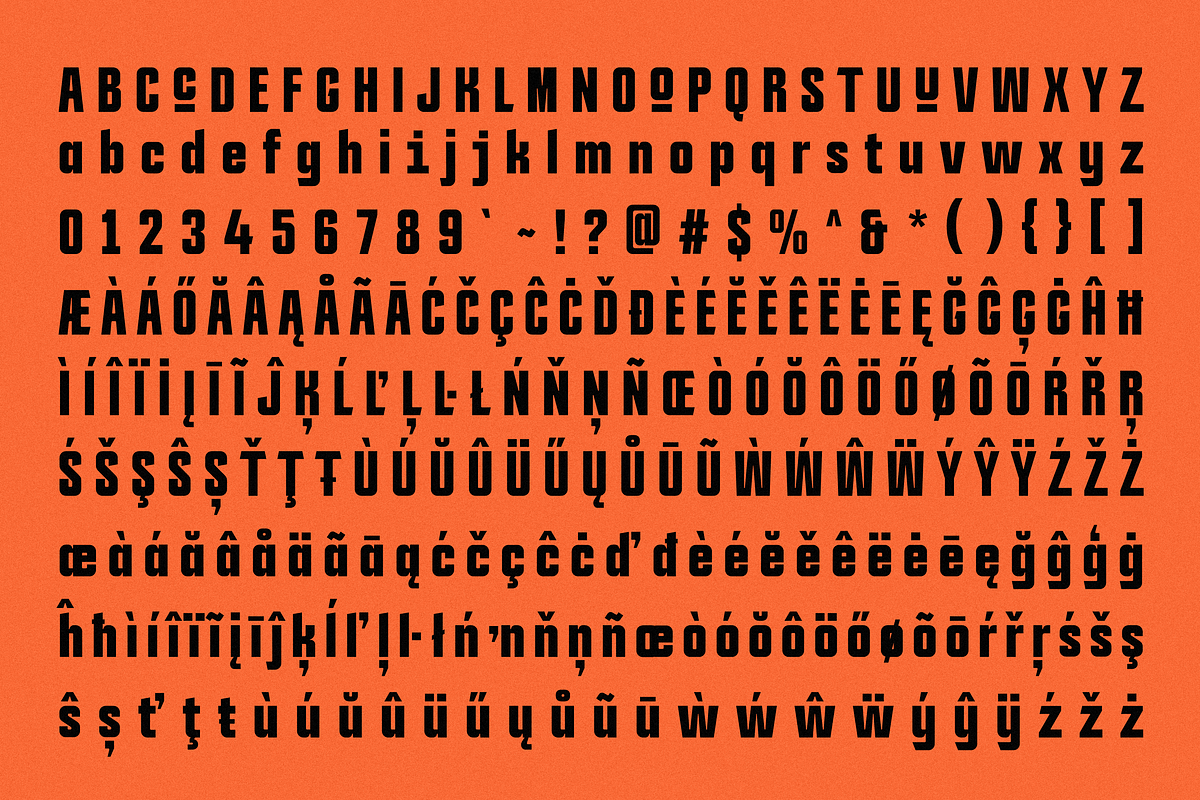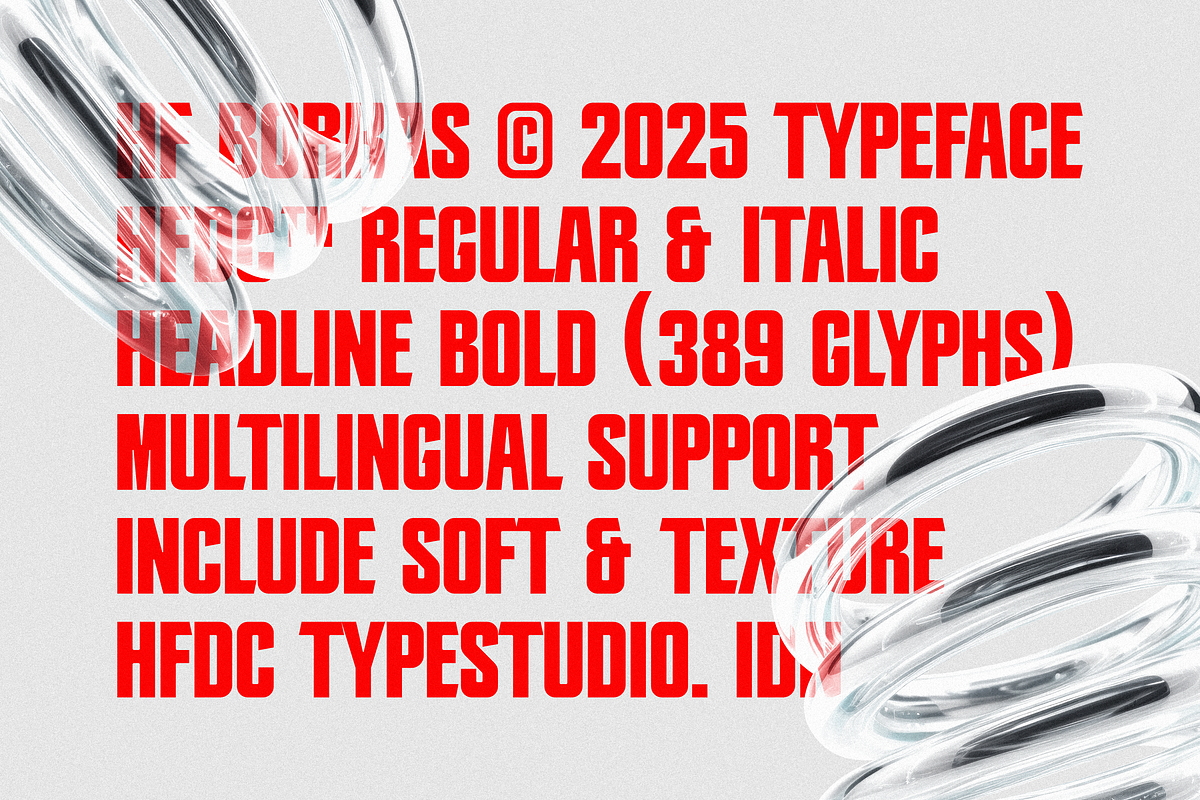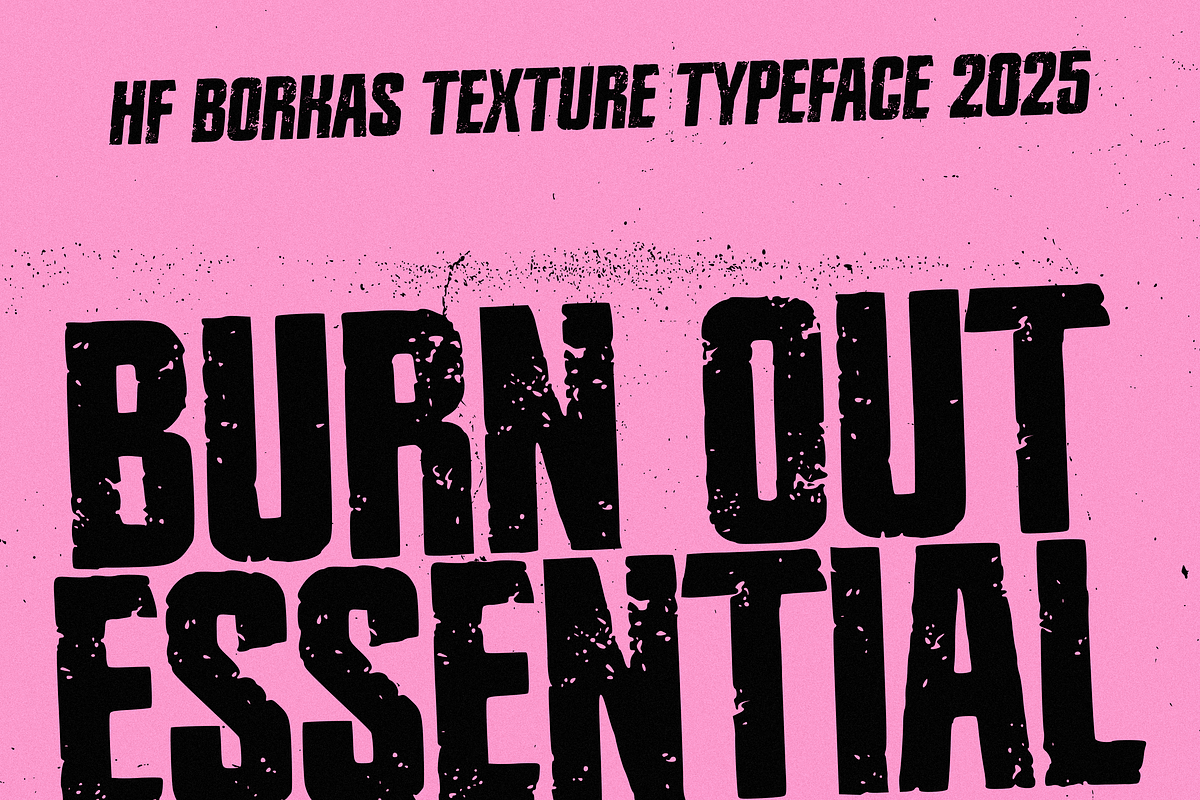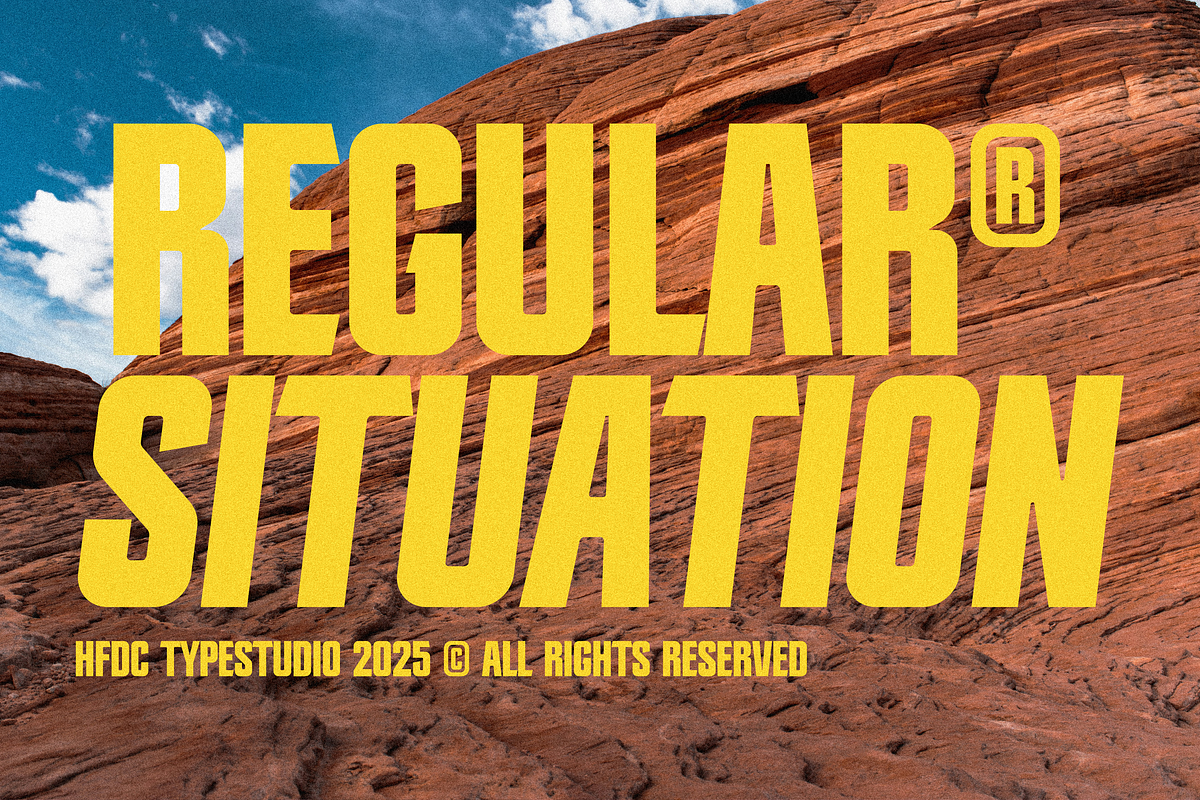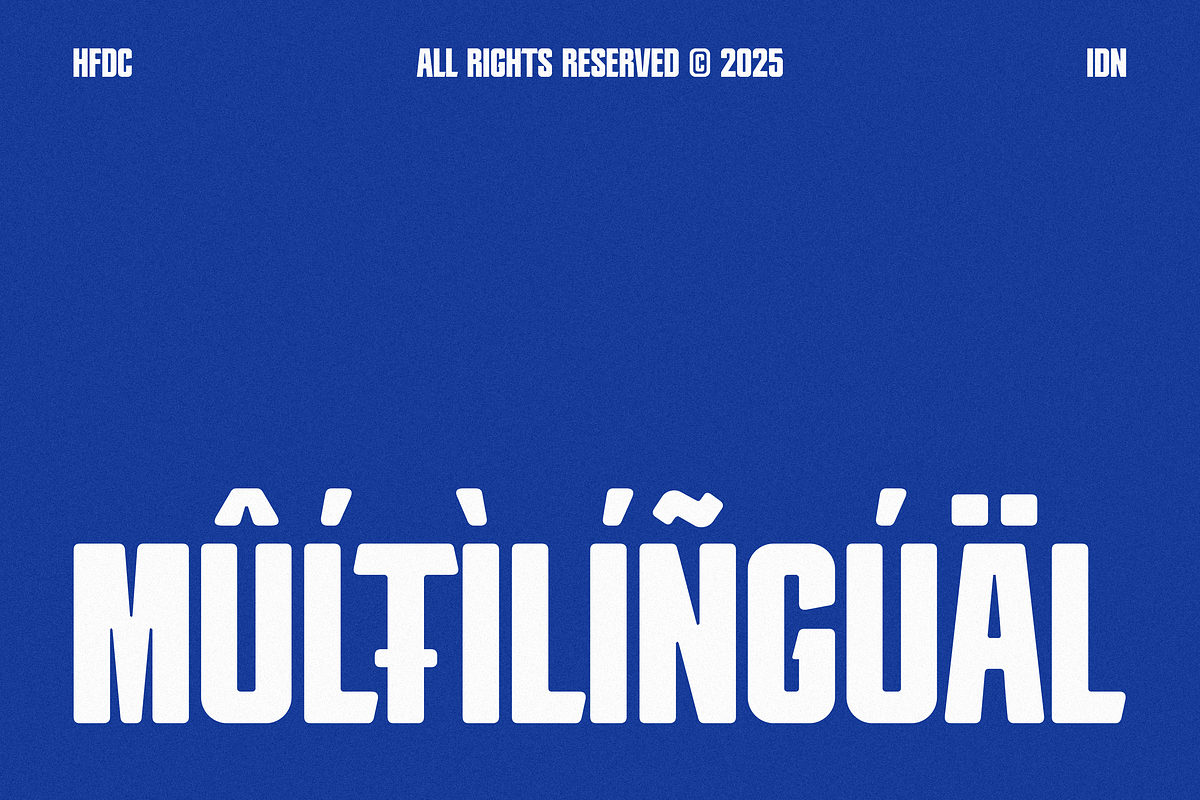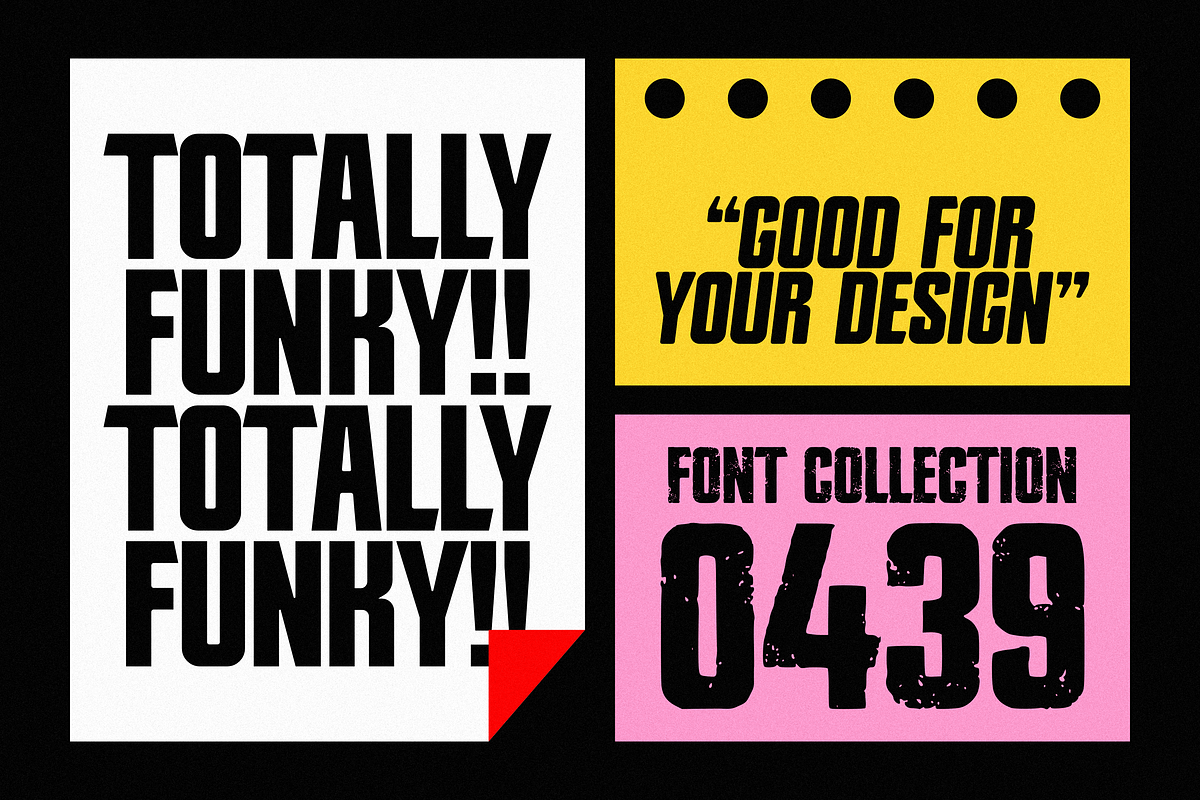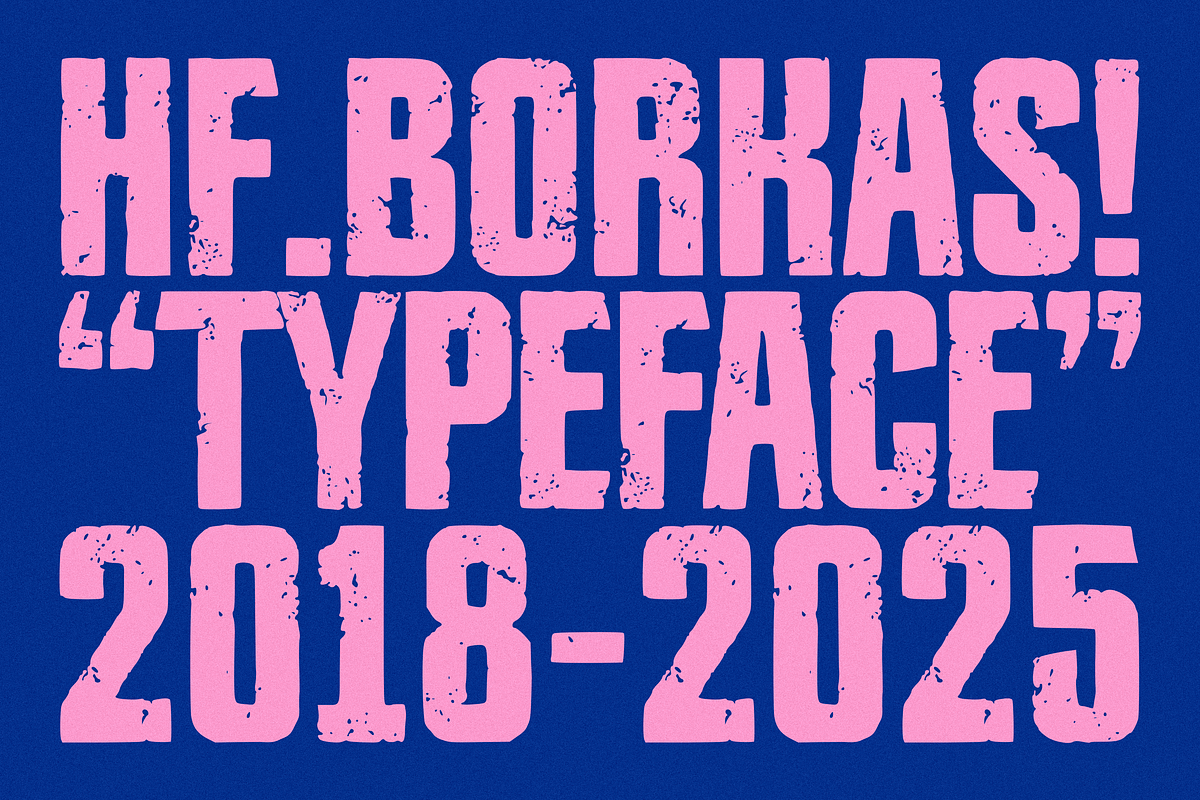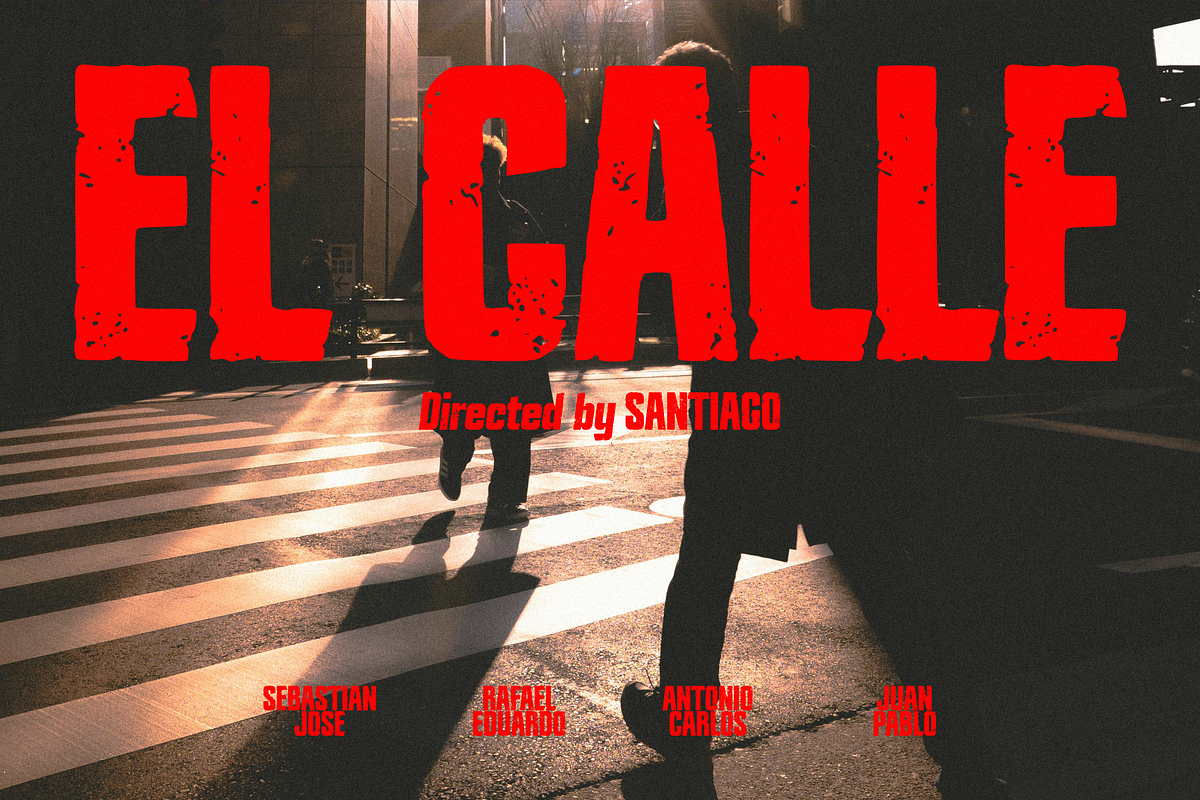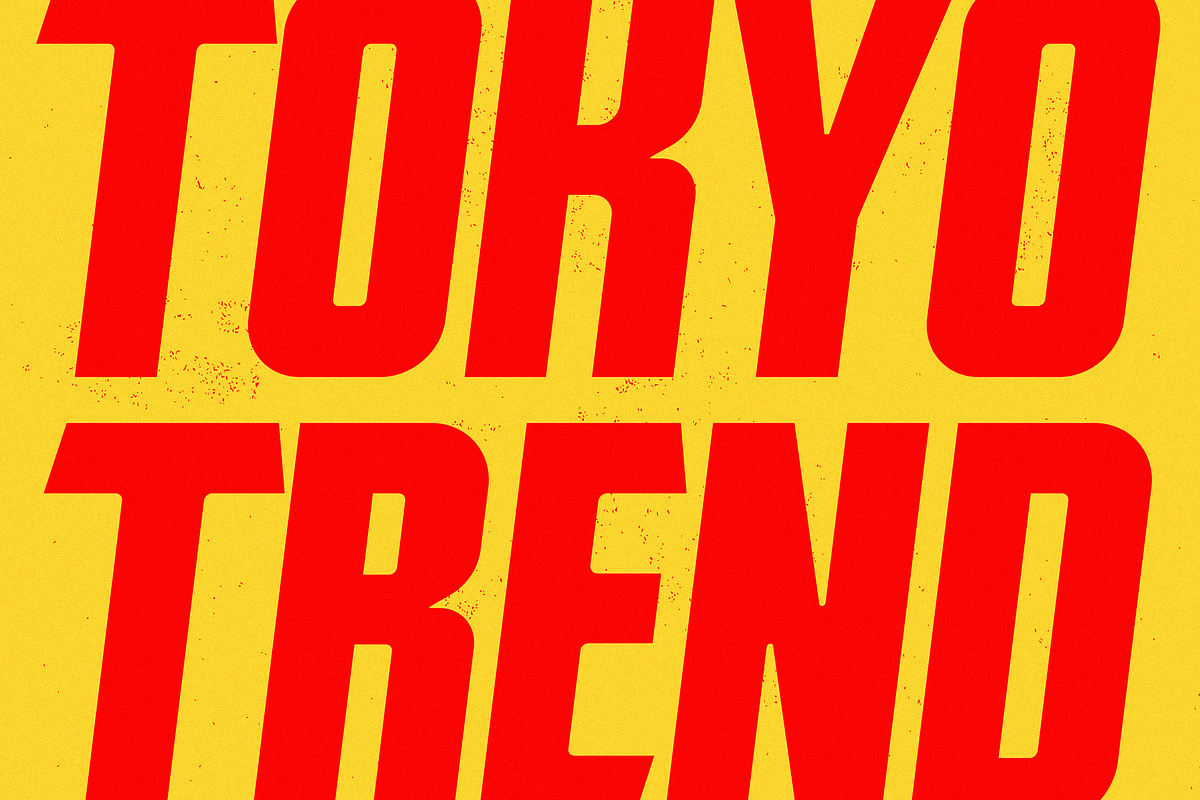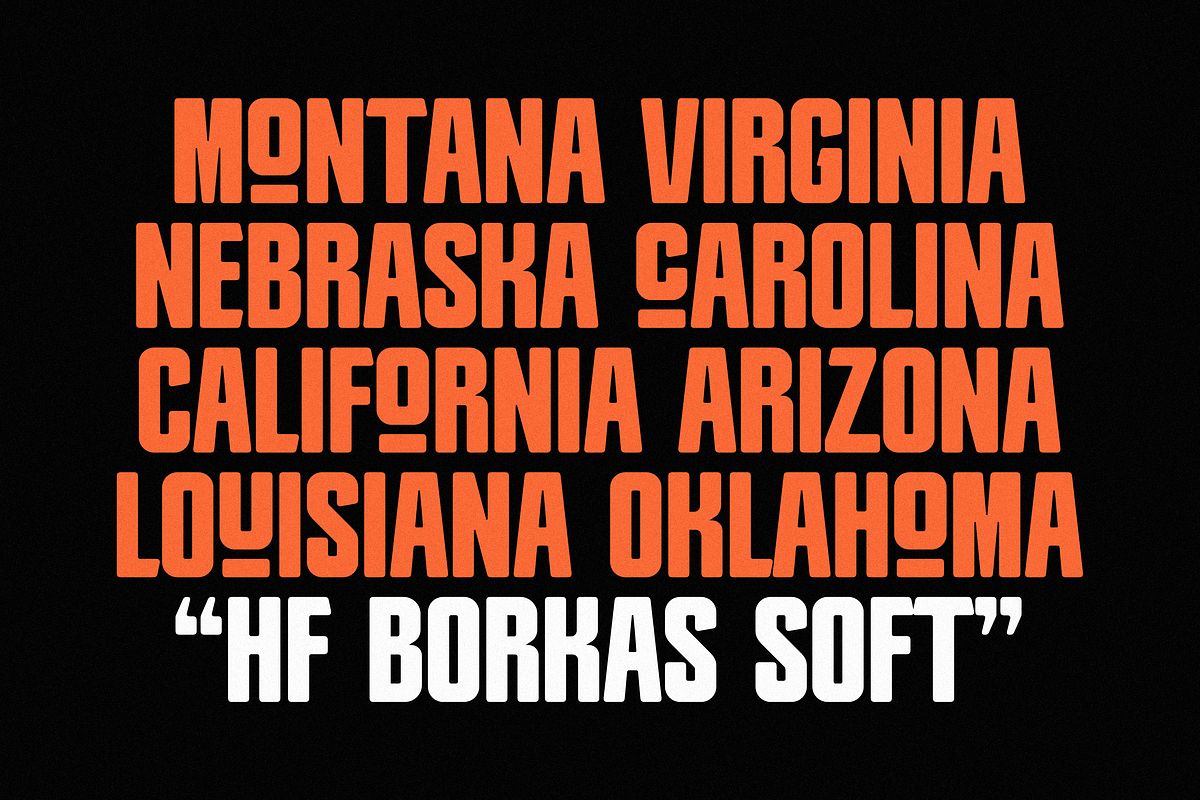
HF Borkas - Bold Sans Serif
HF Borkas is a powerful sans serif typeface designed to make a bold statement in any design. With its solid presence and commanding style, this type family is perfect for headlines, posters, logos, apparel, and branding that demands attention.
HF Borkas comes in three distinct styles to match a variety of creative moods:
Regular – Clean and assertive with sharp edges and modern geometry.
Soft – Features smoother terminals for a friendlier, more approachable look while retaining its strength.
Texture – A rugged, distressed version that adds character and vintage flair to your designs.
Each style is complemented with a matching Italic version, offering even more flexibility and expression in your typography.
Multilingual support and a wide range of punctuation and symbols make HF Borkas a robust choice for both print and digital projects. Whether you’re creating dynamic editorial layouts or bold graphic statements, HF Borkas brings impact and personality to the forefront.